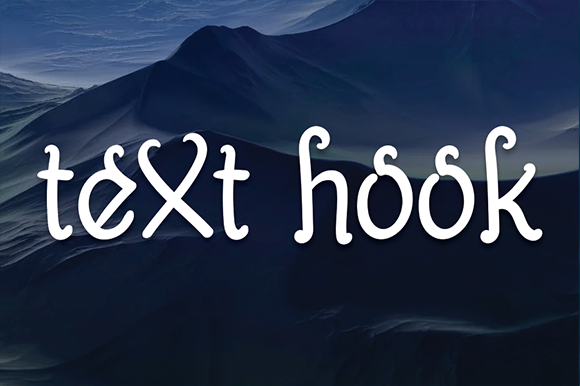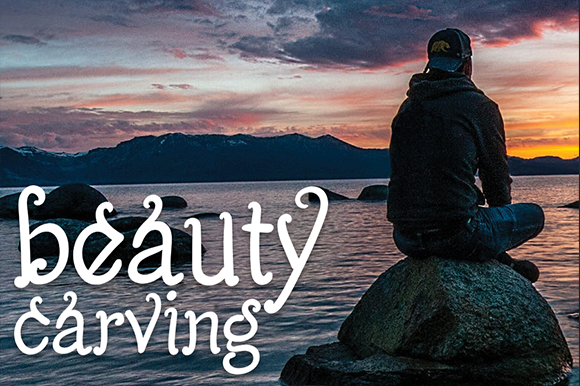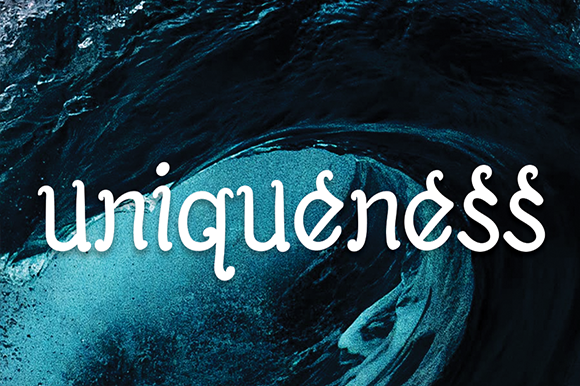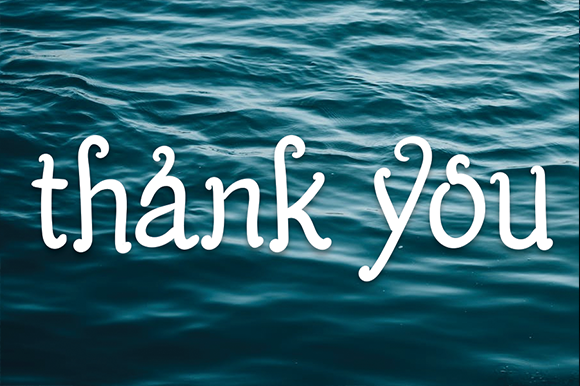
Introducing Ganfosa Font: The Cute and Casual Display Font for Creative Projects
Are you a designer, crafter, or DIY enthusiast looking for a font that can add a touch of friendliness and playfulness to your creative projects? Look no further than Ganfosa Font! This adorable display font is perfect for anyone who wants to turn their ideas into a true piece of art. In this article, we’ll dive into the features and benefits of Ganfosa Font, and explore how it can elevate your designs and DIY projects.
What is Ganfosa Font?
Ganfosa Font is a cute and casual display font that exudes an incredibly friendly feel. Its unique and charming design makes it perfect for a wide range of creative projects, from social media graphics and Instagram posts to calligraphy scripts and DIY crafts. Whether you’re a professional designer or a hobbyist, Ganfosa Font is sure to inspire your creativity and help you bring your ideas to life.
Key Features of Ganfosa Font
- Cute and Casual Design: Ganfosa Font features a playful and informal design that’s perfect for creative projects that require a friendly and approachable feel.
- Display Font: As a display font, Ganfosa is designed to make a statement and grab attention. Its bold and chunky design makes it perfect for headlines, titles, and other prominent text elements.
- Friendliness: The font’s unique design is infused with a sense of friendliness and approachability, making it perfect for projects that require a personal touch.
- Versatility: Ganfosa Font is versatile and can be used for a wide range of creative projects, from digital designs to handmade crafts.
Uses for Ganfosa Font
Ganfosa Font is perfect for a variety of creative projects, including:
- Instagram Graphics: Add a touch of personality to your Instagram posts and stories with Ganfosa Font.
- Calligraphy Scripts: Use Ganfosa Font to create beautiful calligraphy scripts for DIY projects, such as handmade cards and invitations.
- DIY Crafts: Ganfosa Font is perfect for DIY crafts, such as scrapbooking, journaling, and other paper crafts.
- Digital Designs: Use Ganfosa Font to add a playful touch to your digital designs, such as brochures, flyers, and posters.
Benefits of Using Ganfosa Font
By using Ganfosa Font, you can:
- Add Personality to Your Designs: Ganfosa Font’s unique design allows you to add a touch of personality and friendliness to your creative projects.
- Stand Out from the Crowd: With its bold and chunky design, Ganfosa Font is sure to grab attention and help your designs stand out from the crowd.
- Save Time: Ganfosa Font is easy to use and can save you time and effort when working on creative projects.
- Inspire Creativity: Ganfosa Font’s playful design is sure to inspire your creativity and help you come up with new and innovative ideas.